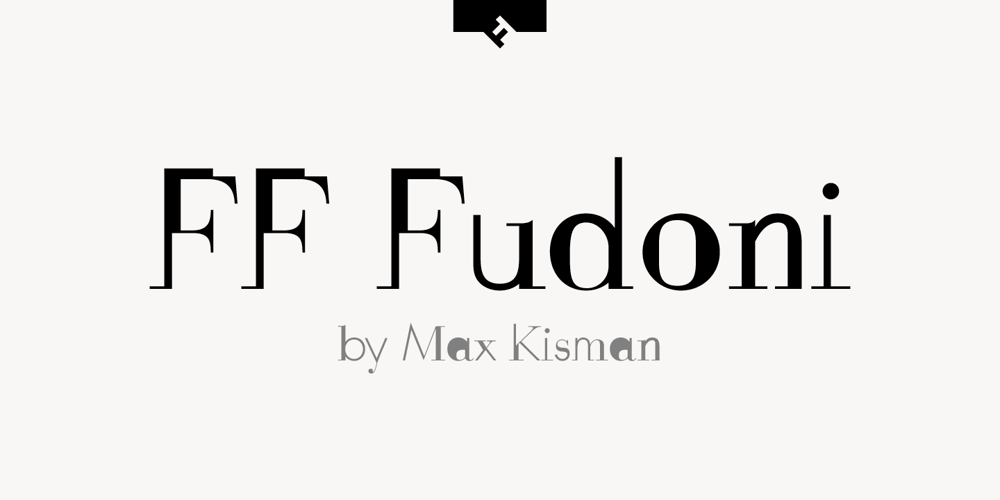
FF Fudoni
FF Fudoni font
FF Fudoni Font Family was designed by Max Kisman and published by FontFont. FF Fudoni contains 3 styles and family package options. Dutch type designer Max Kisman created this display FontFont in 1991. The family contains 3 weights and is ideally suited for festive occasions, film and tv, music and nightlife as well as poster and billboards. FF Fudoni provides advanced typographical support with features such as ligatures and case-sensitive forms. It comes with proportional lining figures.